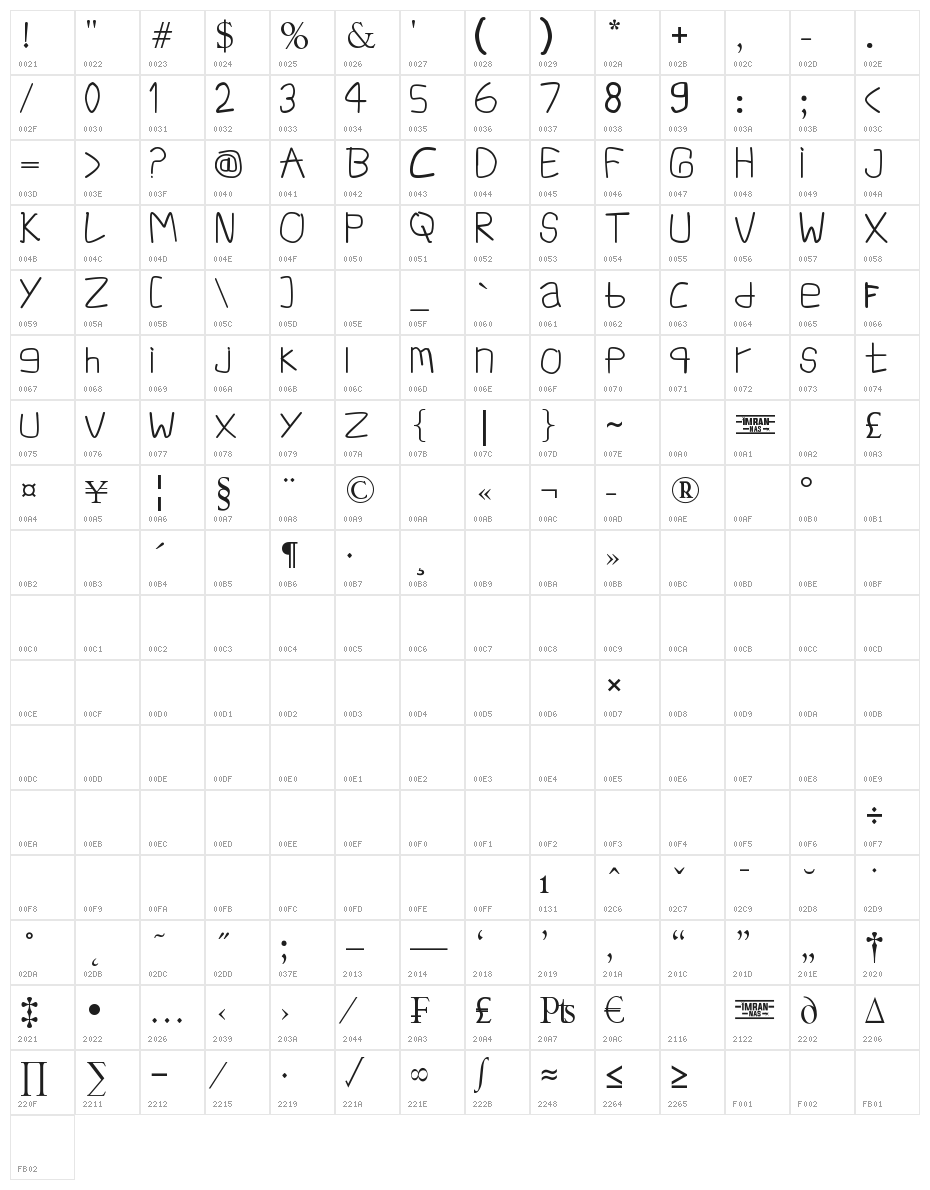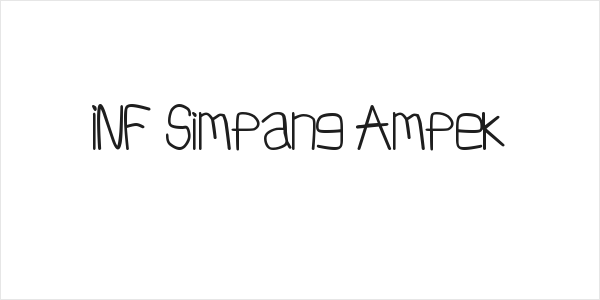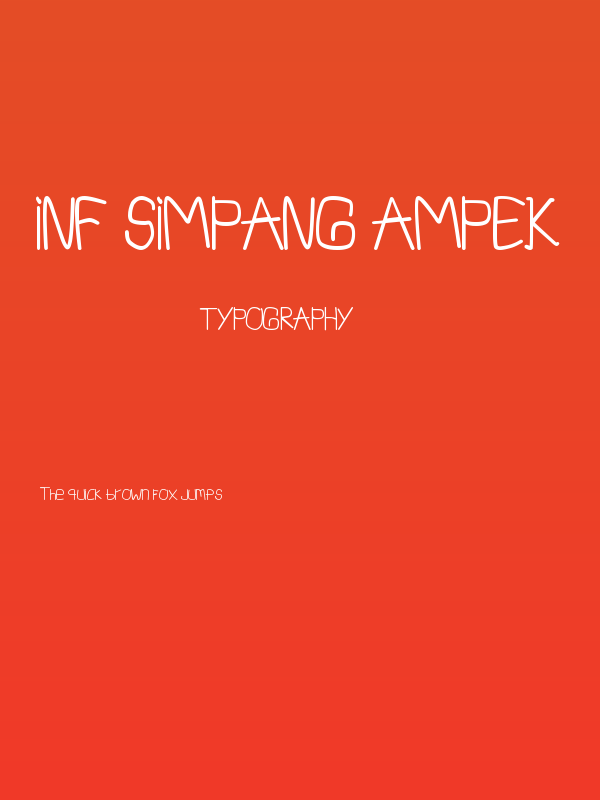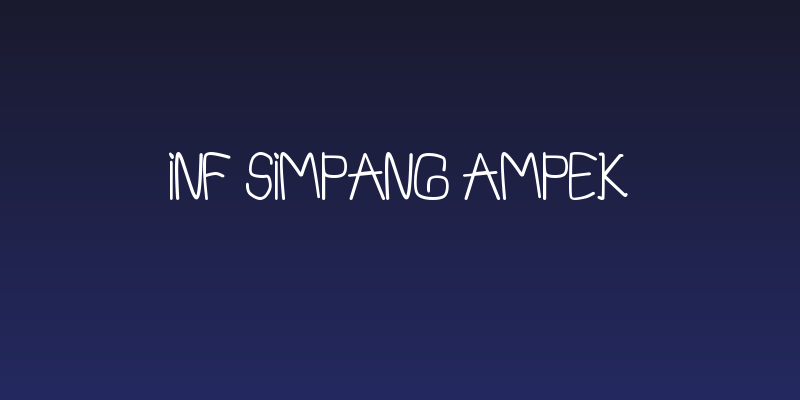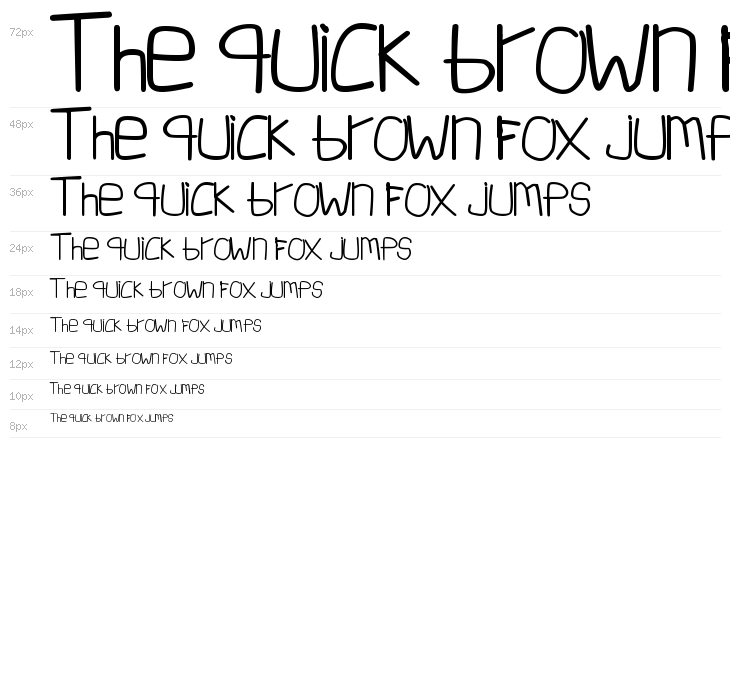
INF Simpang Ampek Font
INF Simpang Ampek Description
This playful and quirky font features a handwritten style with a casual and friendly appearance. The characters are slightly irregular, giving it a unique and informal feel. The uppercase and lowercase letters maintain a consistent style, with rounded edges and a slight tilt that adds to its charm. The numbers and special characters follow the same design principles, ensuring a cohesive look across all elements. This font is perfect for projects that require a personal touch or a fun, approachable aesthetic.
| Proposed Projects | Ideal for children's books, greeting cards, casual branding, and playful social media graphics. |